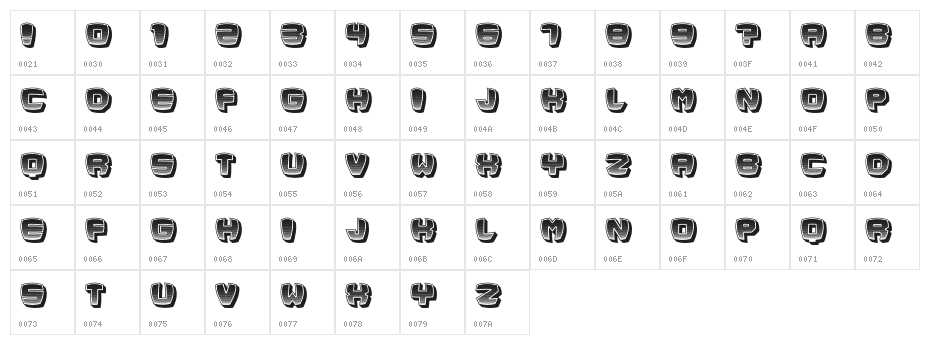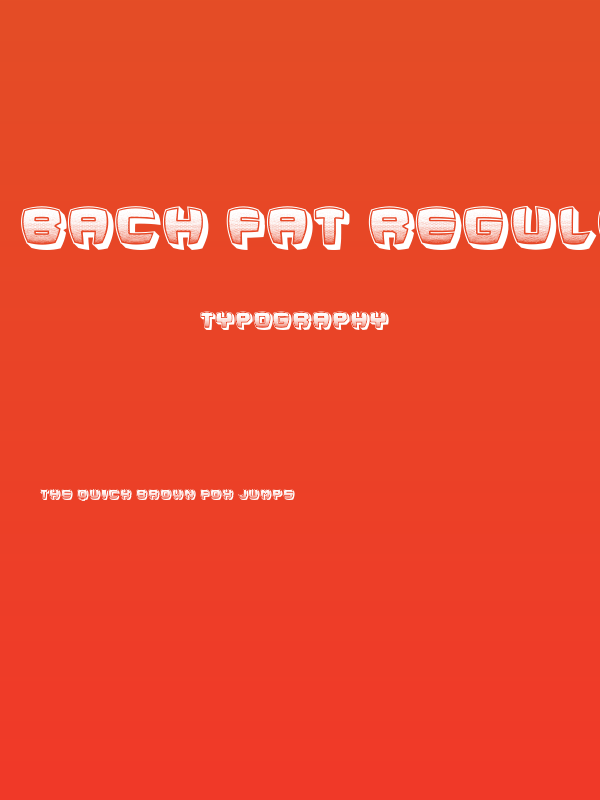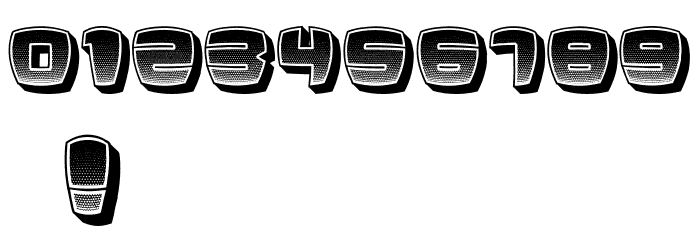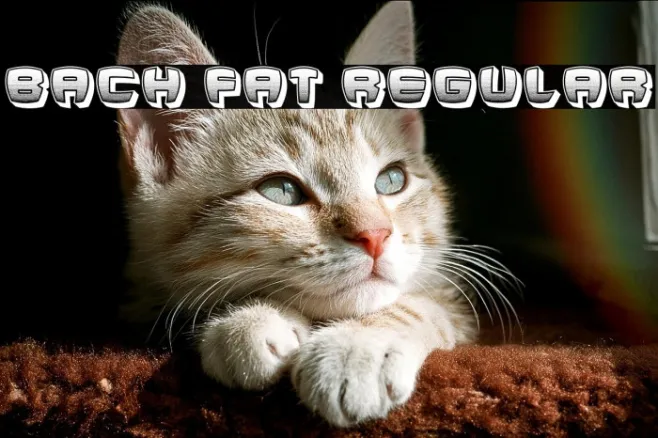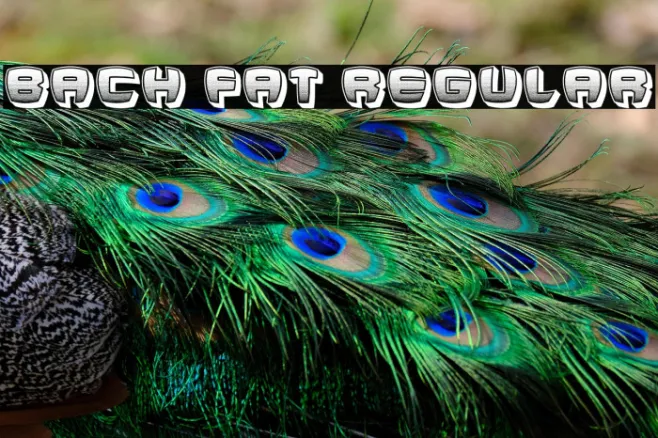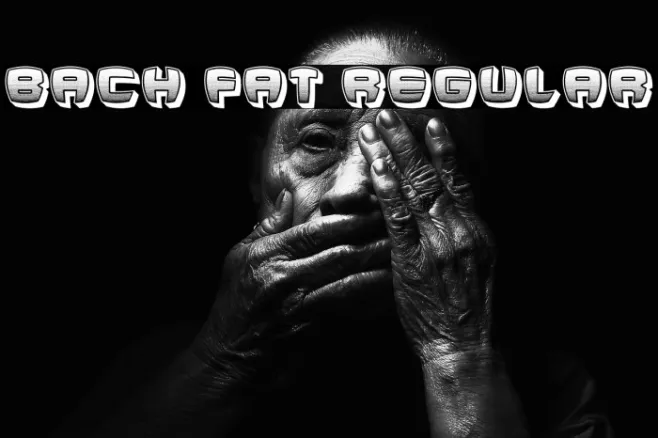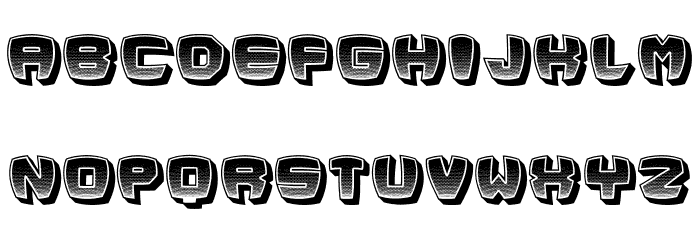
Bach Fat Regular Font
Bach Fat Regular Description
This font features a bold, three-dimensional design with a strong presence. Each character is crafted with a thick outline and a shadow effect, giving it a distinct, blocky appearance. The letters are uppercase and have a uniform width, contributing to a cohesive and structured look. The font's style is reminiscent of retro or vintage signage, with a playful yet sturdy aesthetic. The characters are well-spaced, ensuring readability while maintaining their unique visual impact. This font is ideal for projects that require a bold statement or a touch of nostalgia.